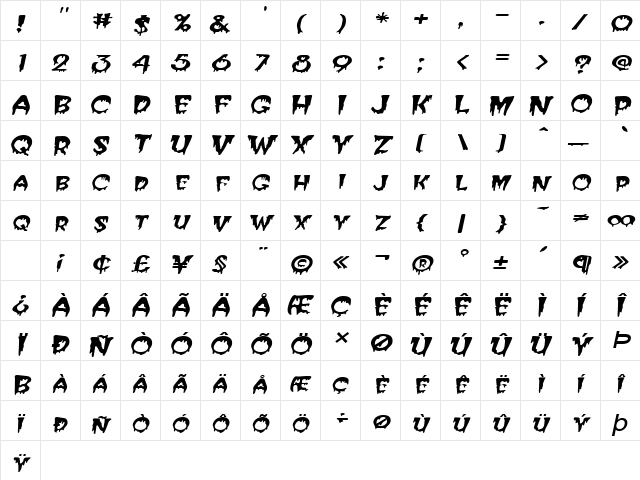
CreepyExtended Italic Font Preview
CreepyExtended Italic
CreepyExtended Italic Font Details
Design Context for CreepyExtended Typeface
CreepyExtended leans into the macabre with letterforms designed to disturb and intrigue in equal measure. Its italic angle brings a sense of urgency and motion to the letterforms.
Ideal for Halloween projects, horror film titles, haunted house signage, and dark editorial design.
Font Pairing: Pair with a clean neutral sans-serif for body copy to let CreepyExtended's character lead without overwhelming the composition.
Pro Tip: CreepyExtended works best as a headline or focal element. Pair it against plain, neutral body text to amplify the contrast.